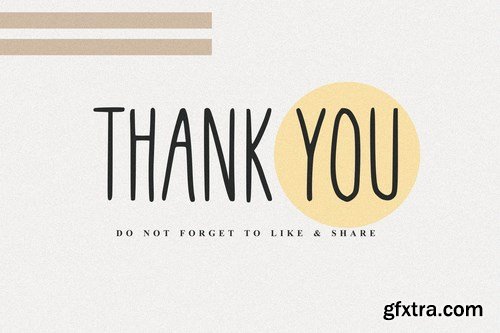
Milson - The Handwriting Sans Font
Milson - The Handwriting Sans Font, every single letter has been carefully crafted to make your text looks beautiful. it's perfect for logos, name cards, magazine layouts, invitations, headers, or even large-scale artwork.